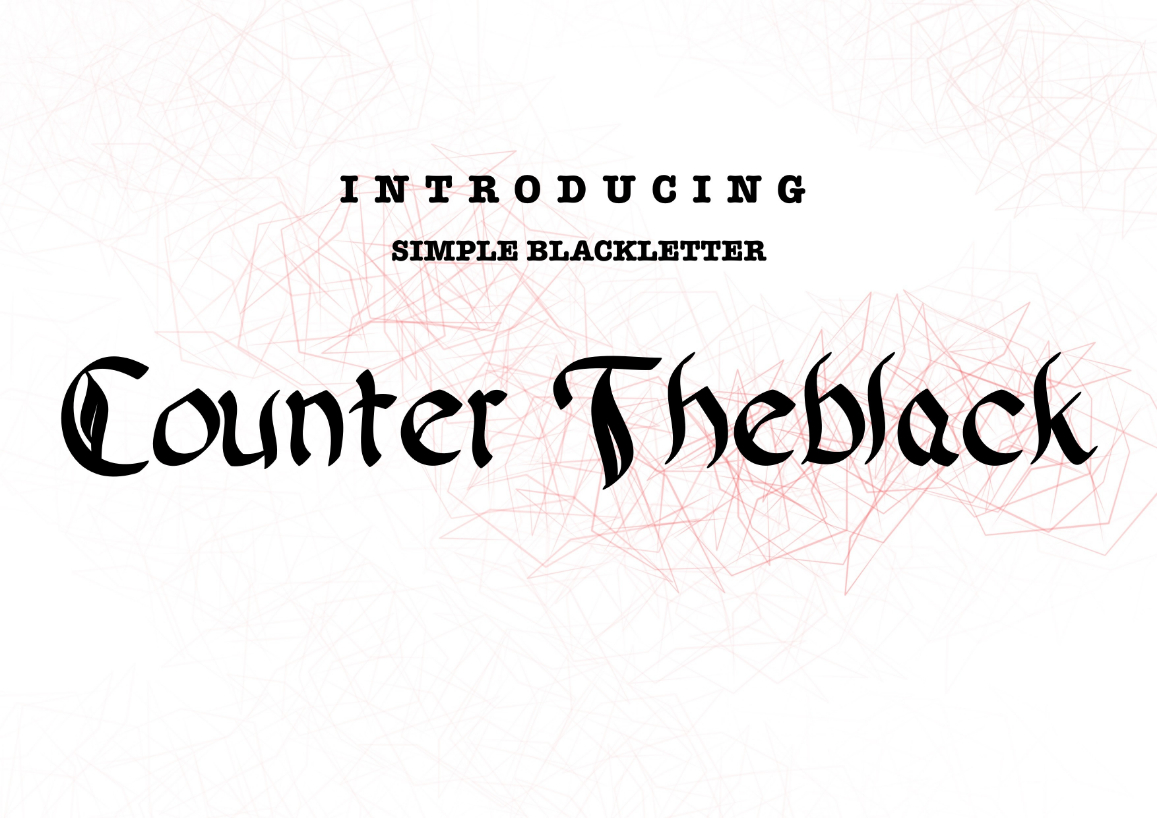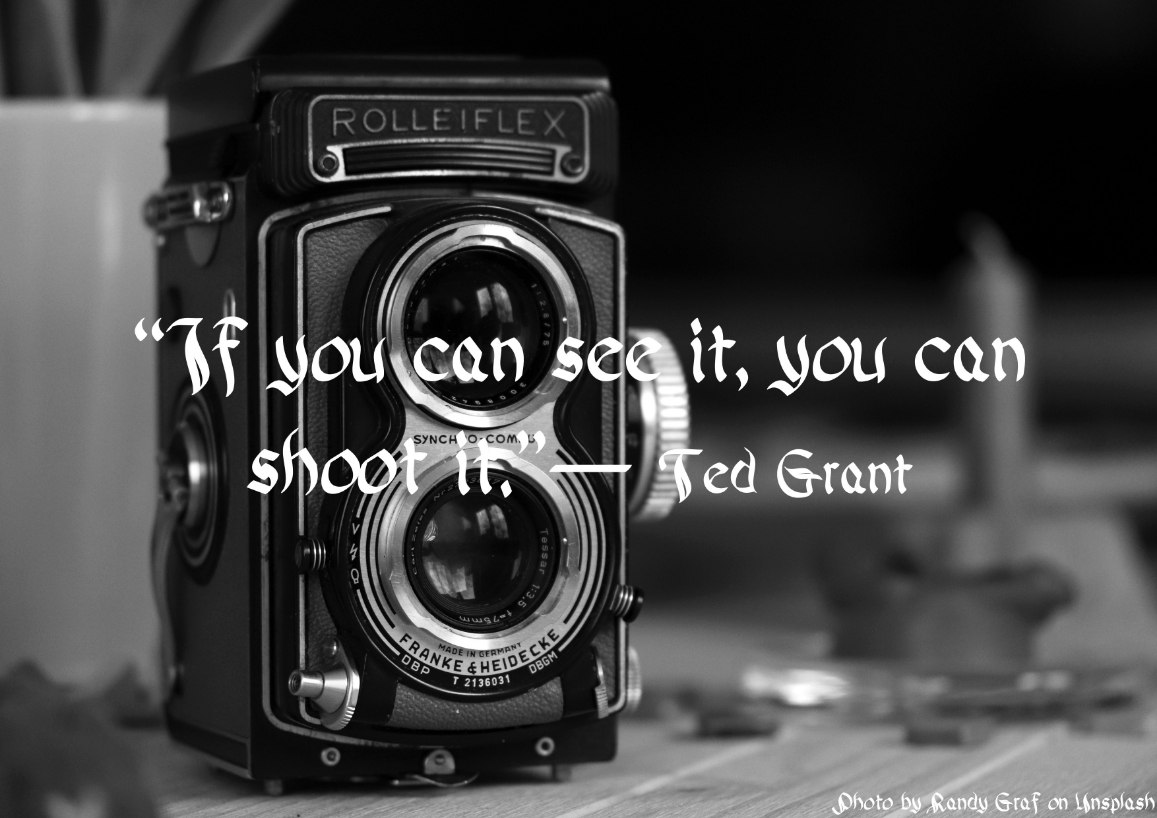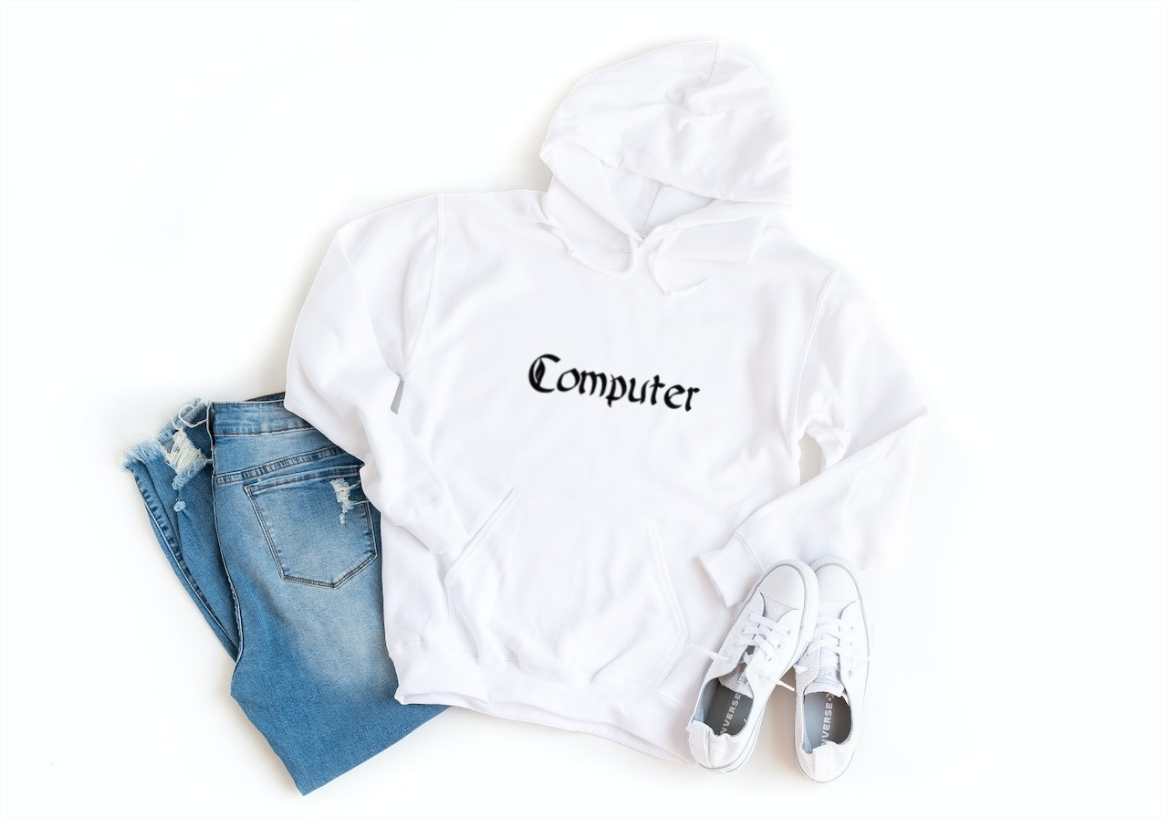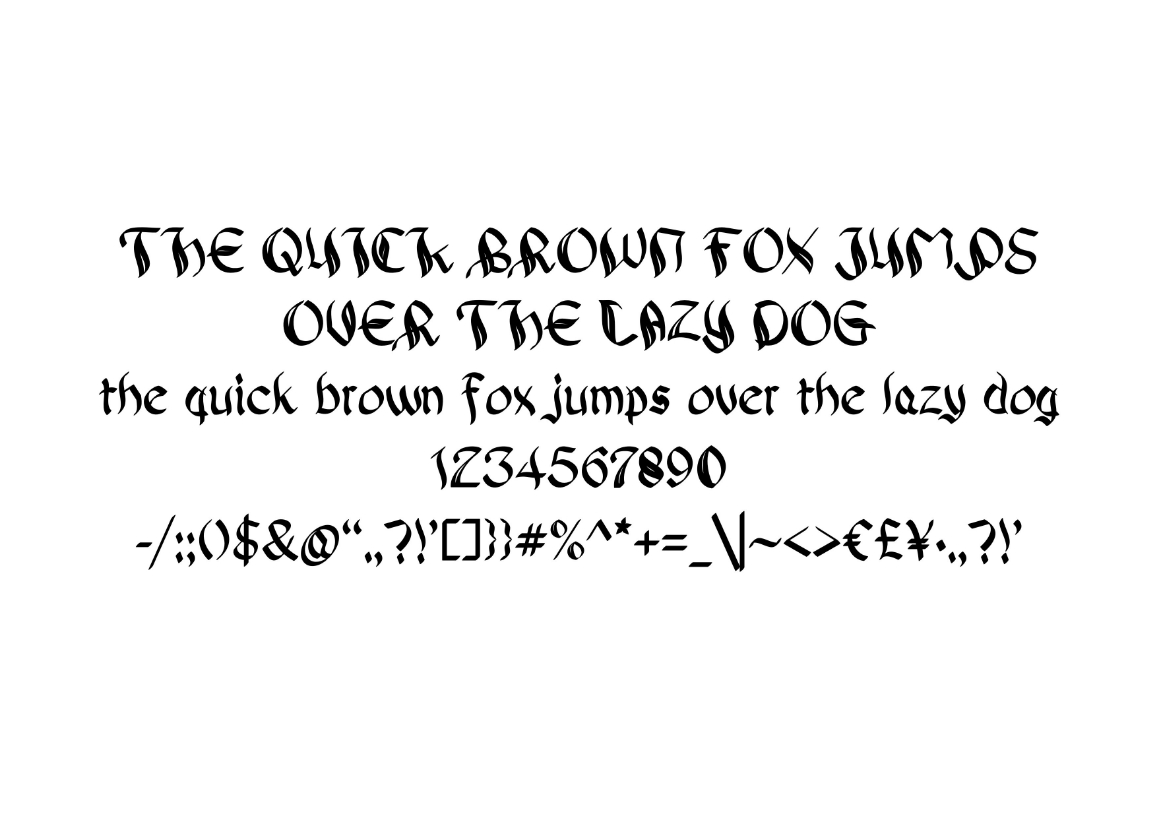
Counter Theblack Font
About Counter Theblack Font
Counter Theblack – a versatile and elegant typeface with over 218 letters, including Latin characters. Designed with both form and function in mind, this font is perfect for various uses, whether for print or digital media. May this font make your design better!